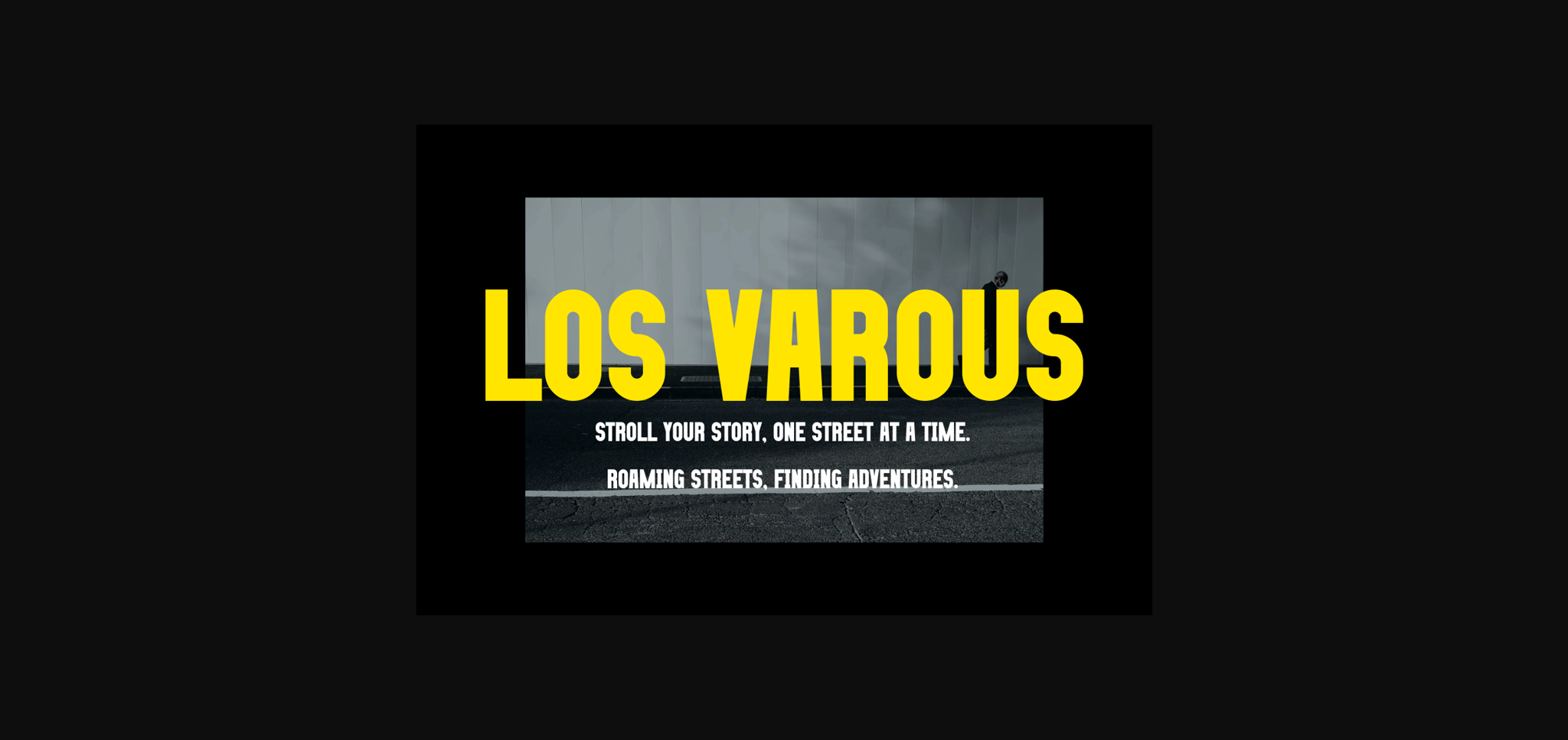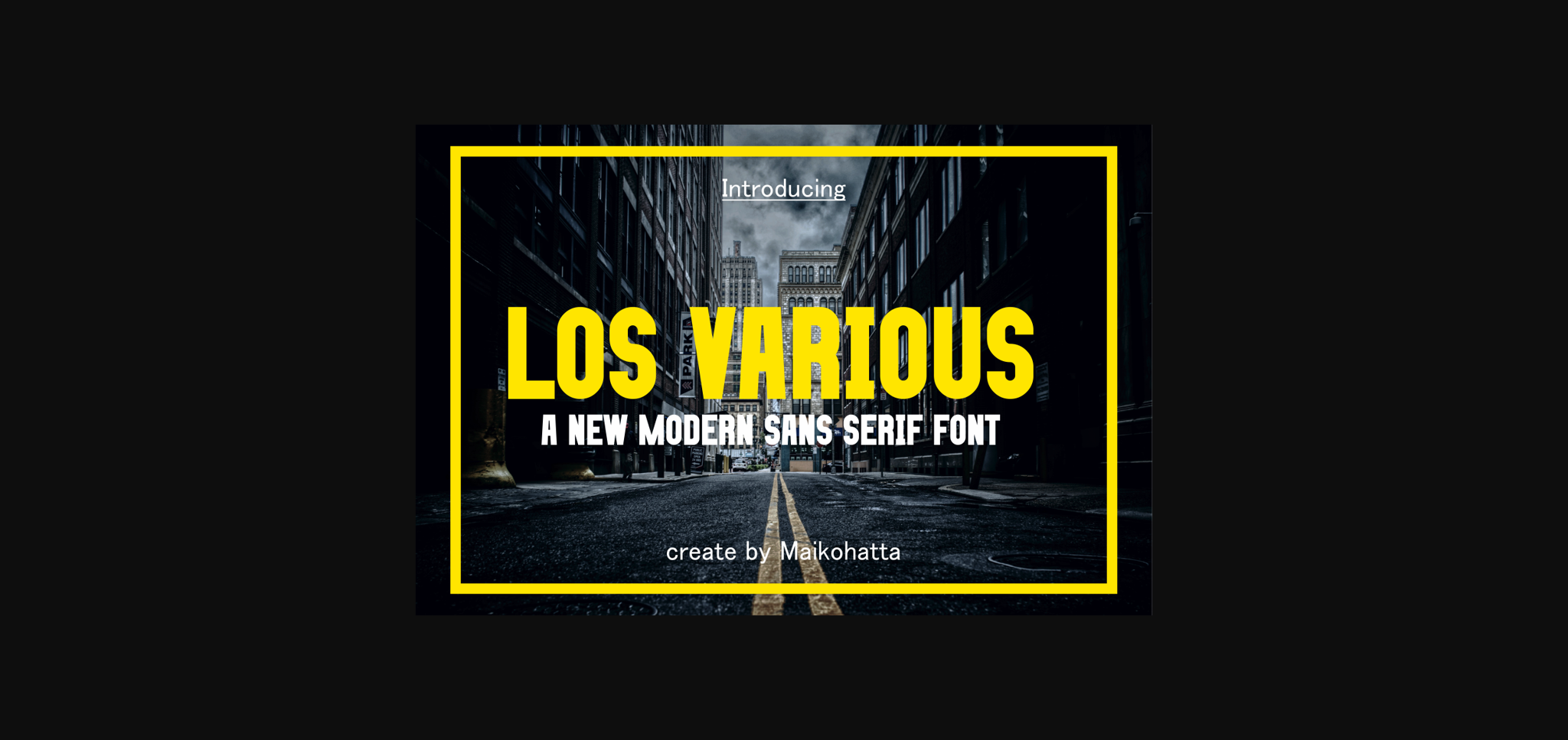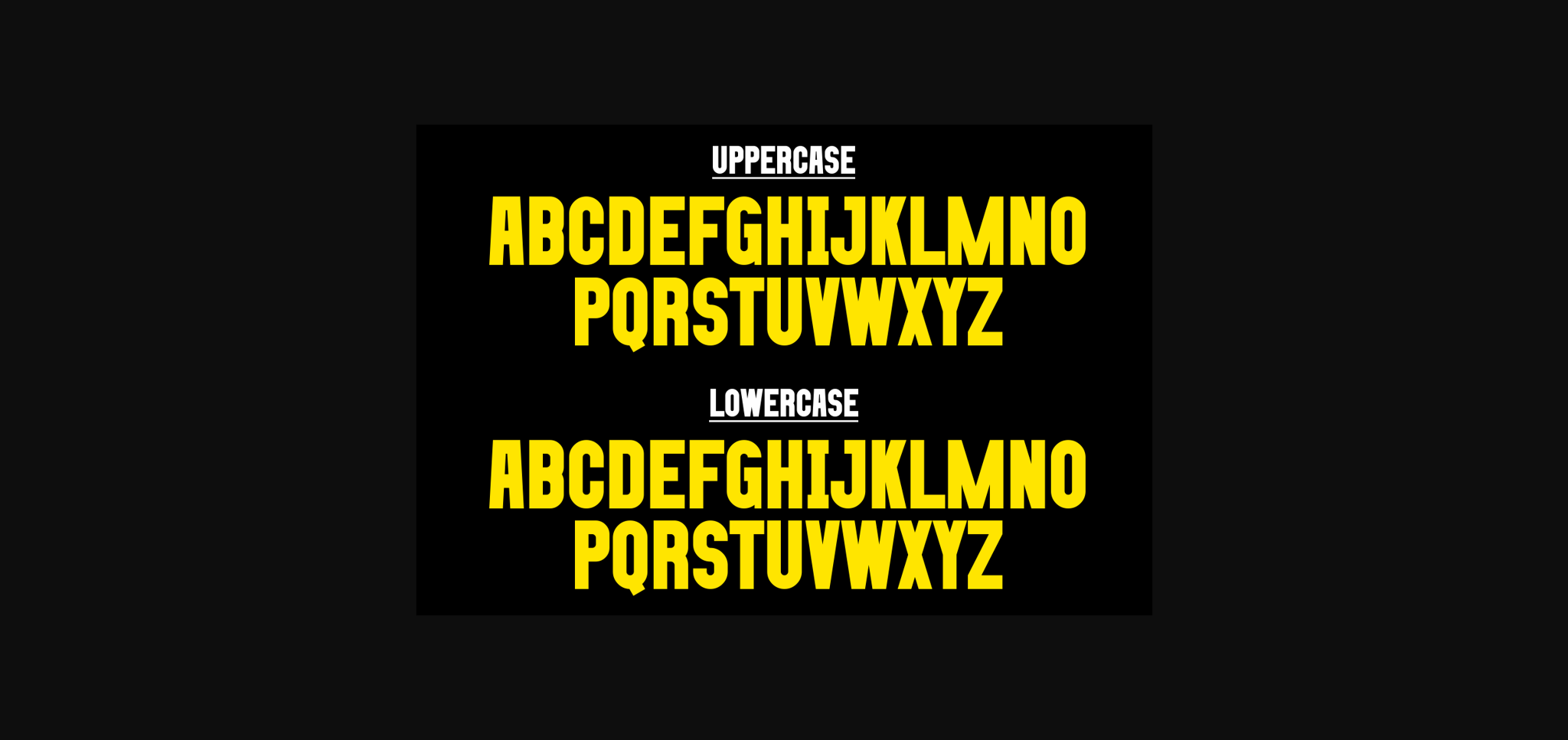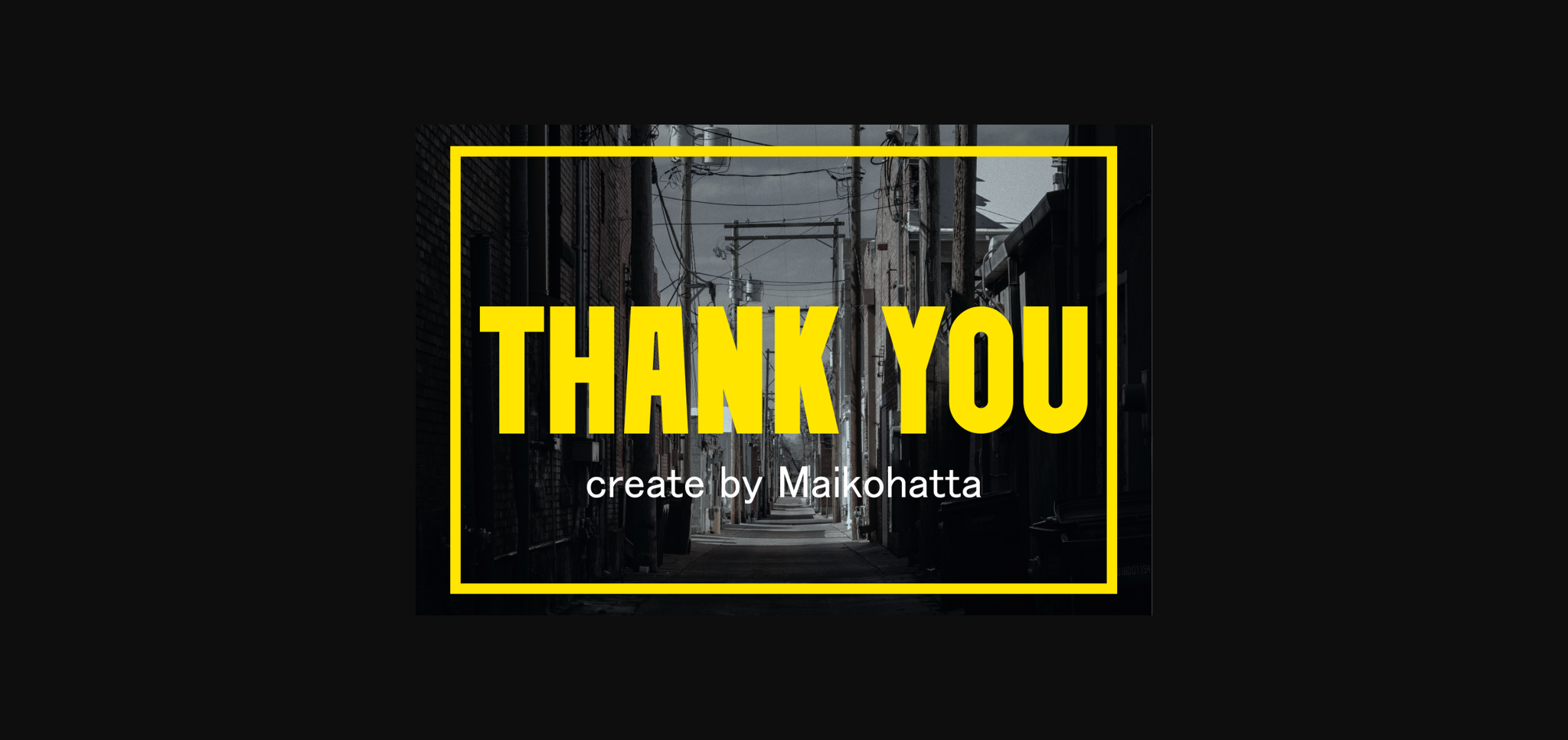
Los Various Font
About Los Various Font
This Font is a very flexible choice and can be used in a variety of design contexts. Its ability to provide a clean, professional, contemporary look and its simplicity and visual appeal make this font good for use in the world of graphic design and modern typography.